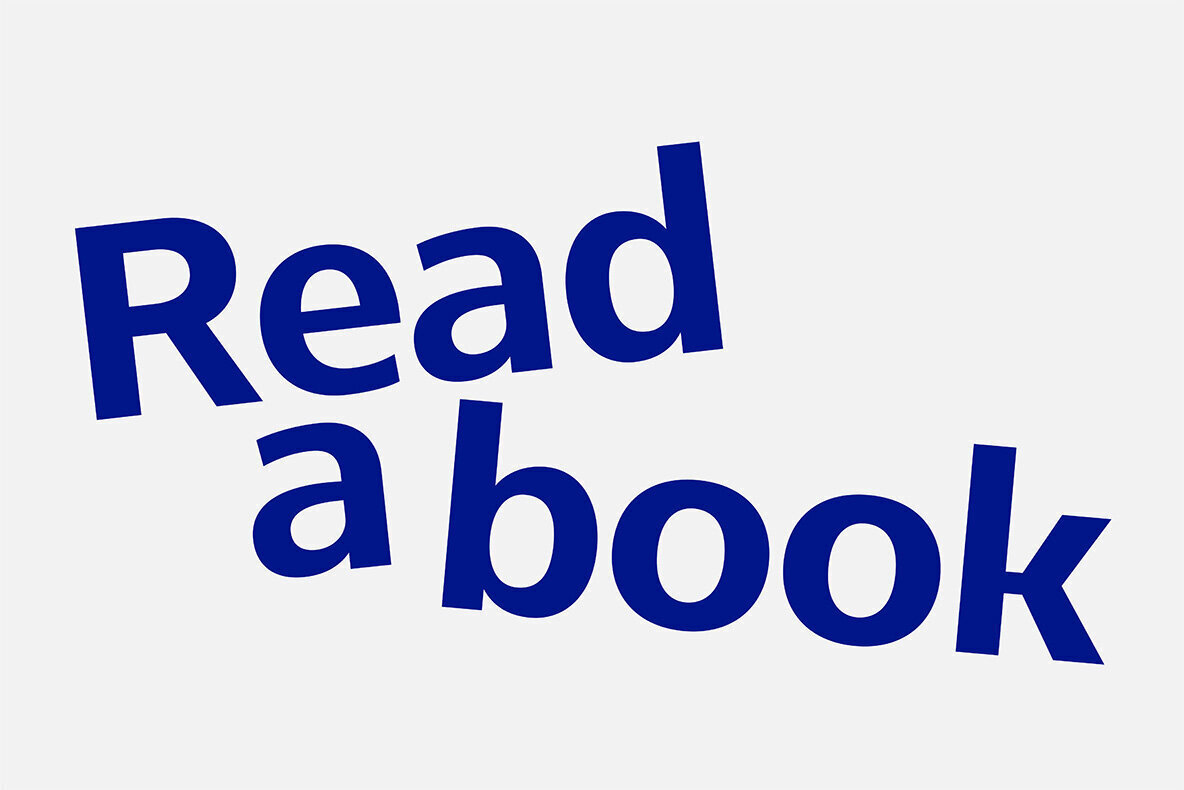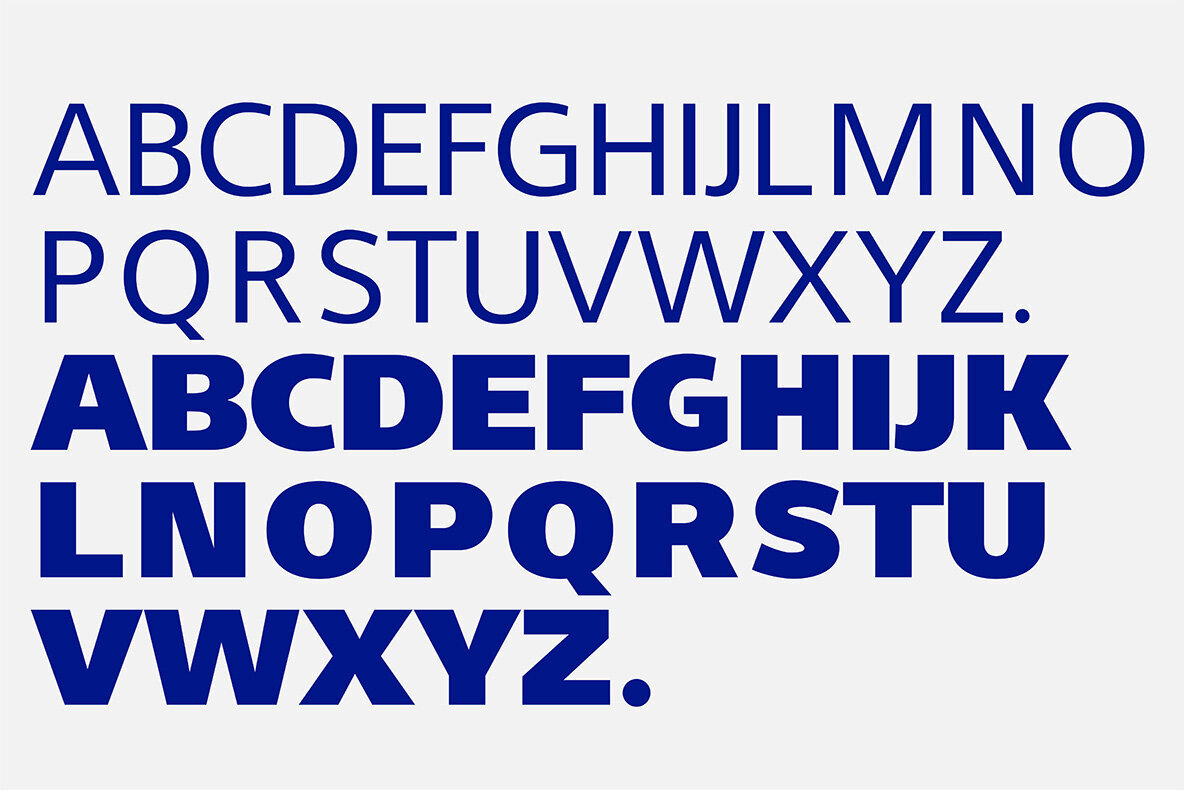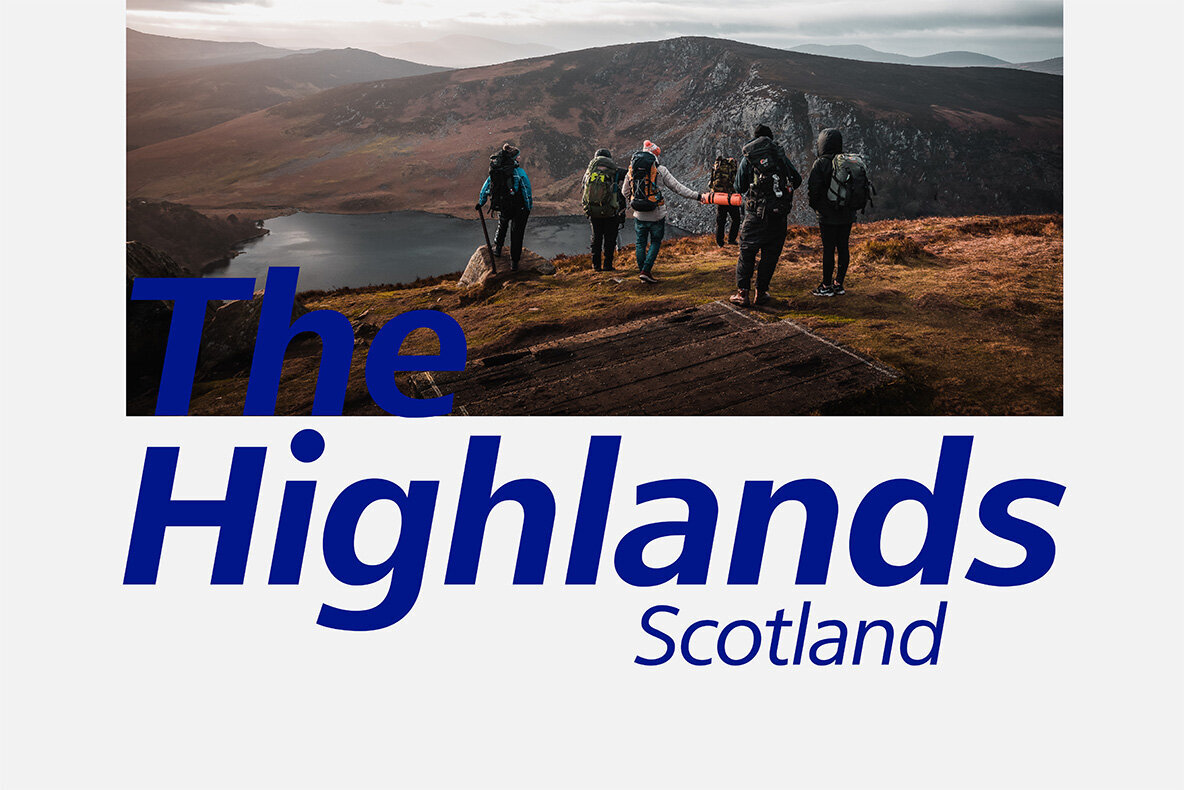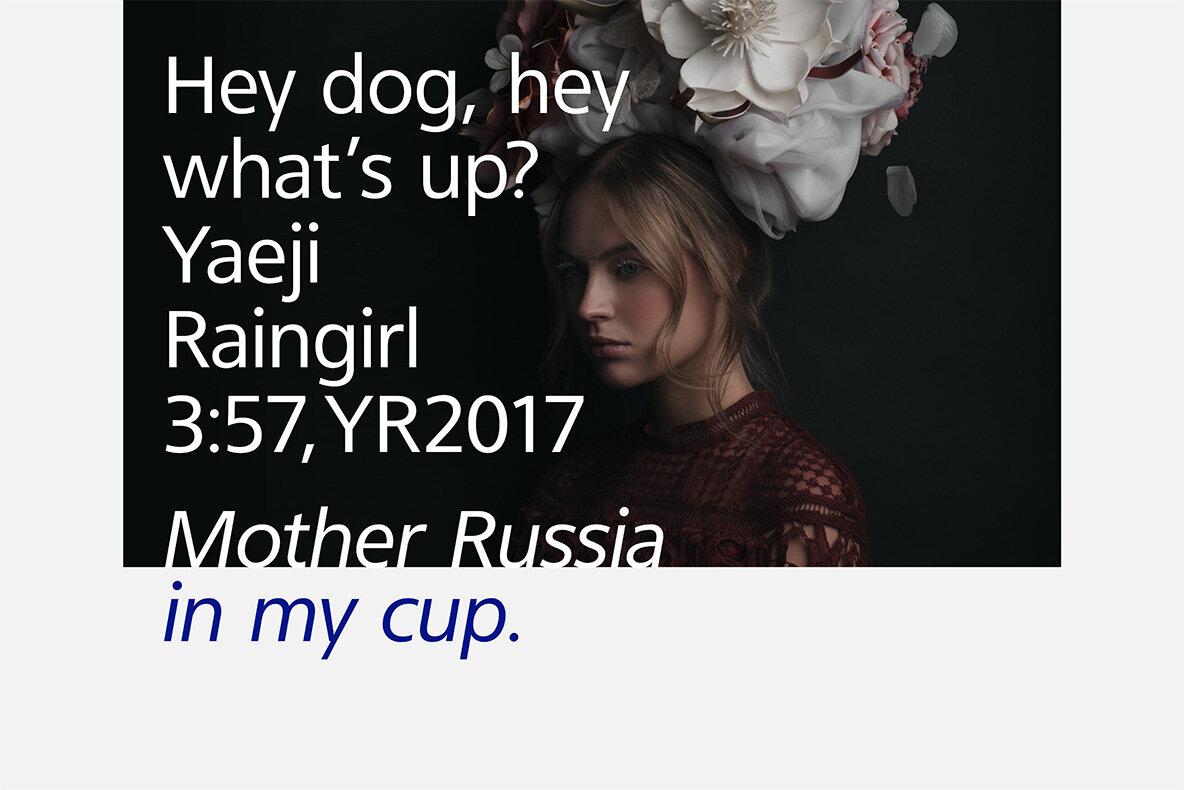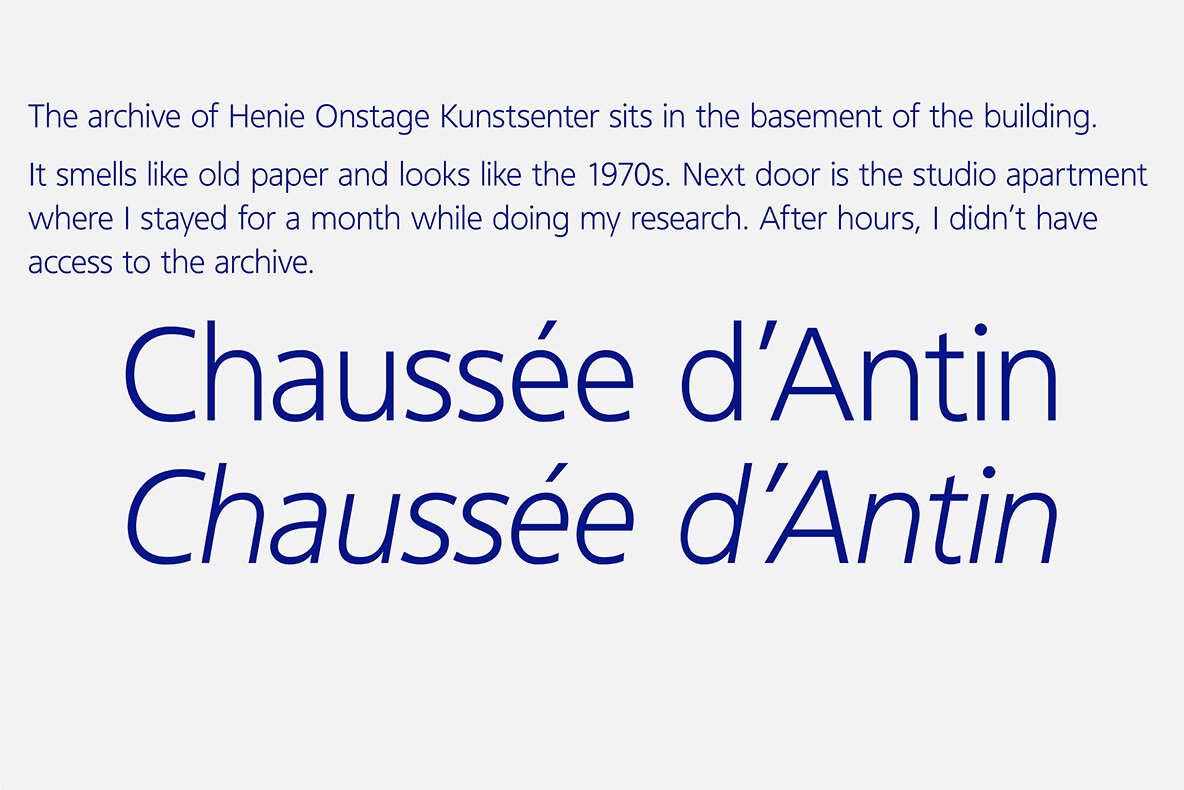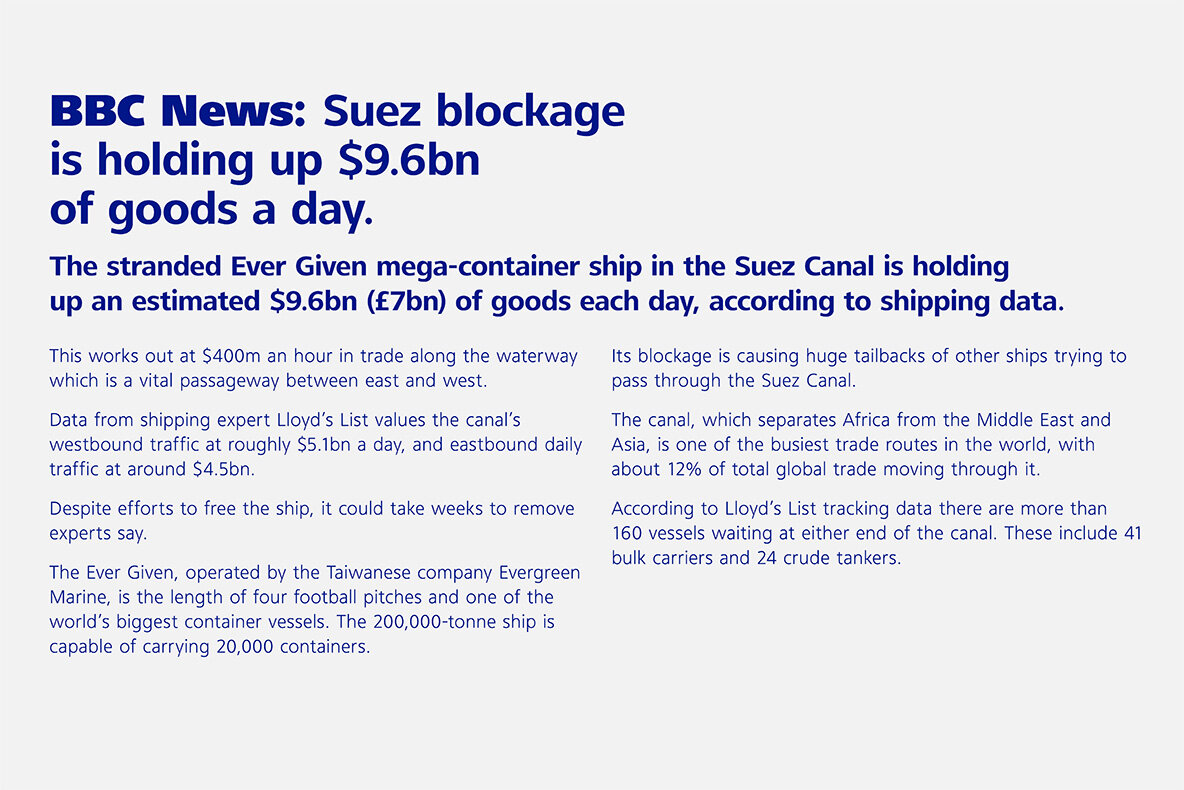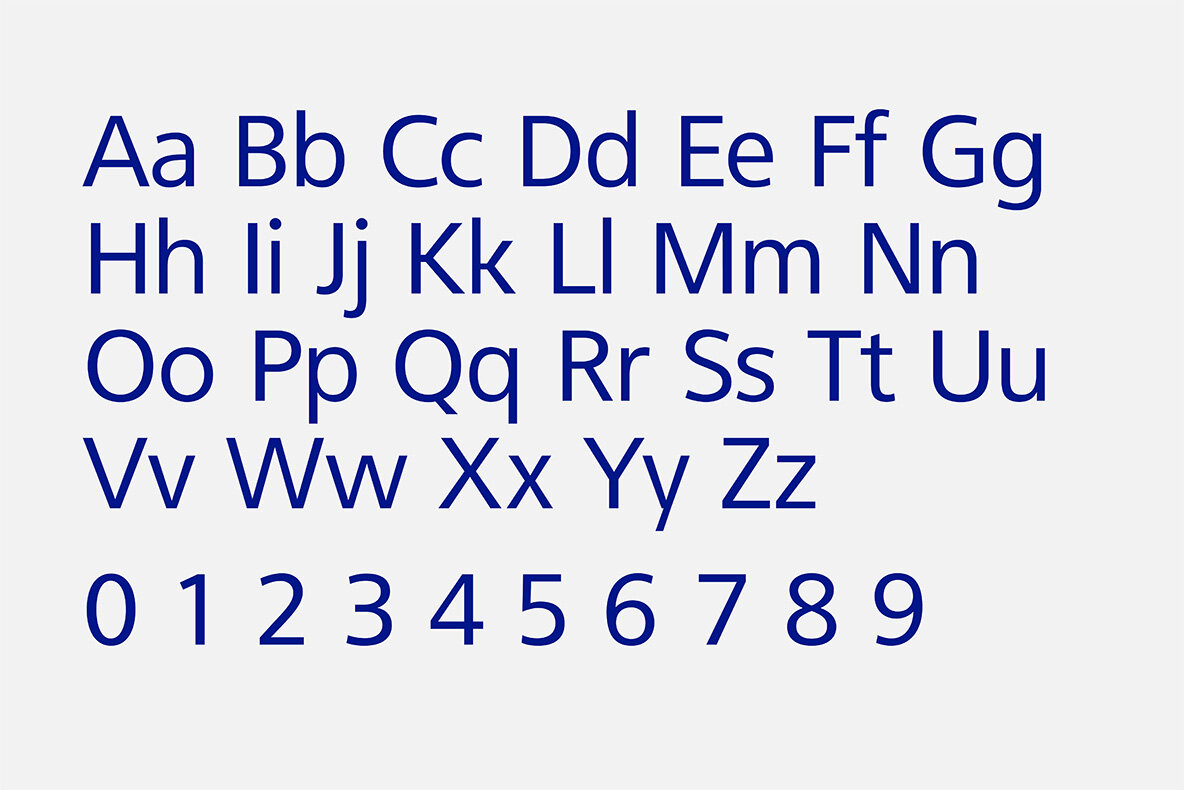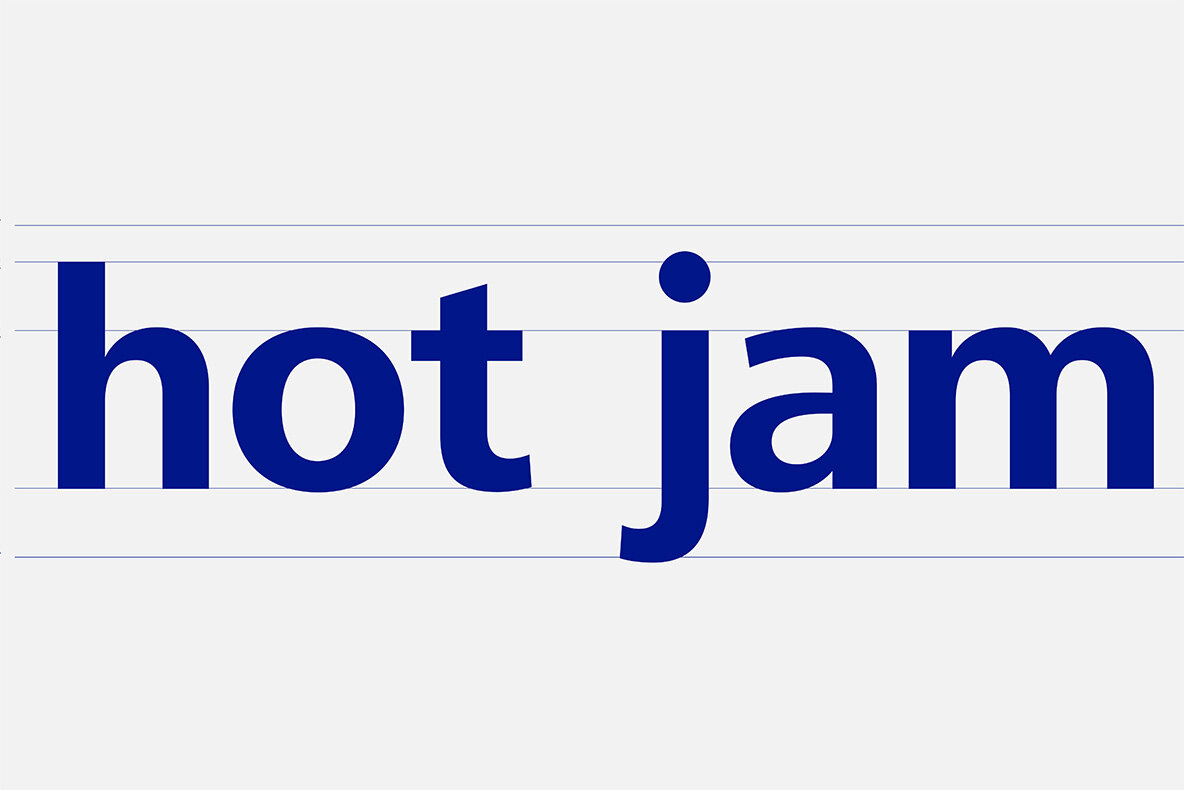
Jam Adega Font
Jam Adega is a humanist sans-serif typeface, intended to be clear and highly legible at a distance or at small text sizes. Jam Adega is extremely legible at a glance.
This typeface can be used in large blocks of small text or as signage because of its instant and clear legibility.